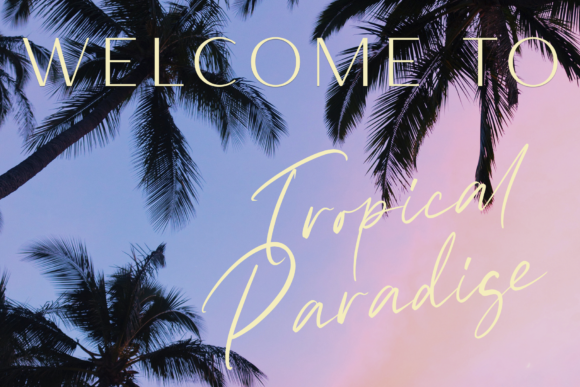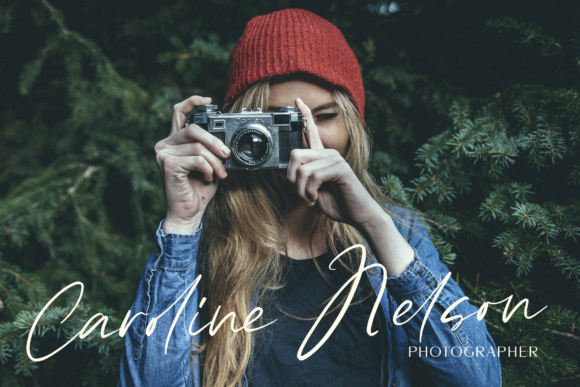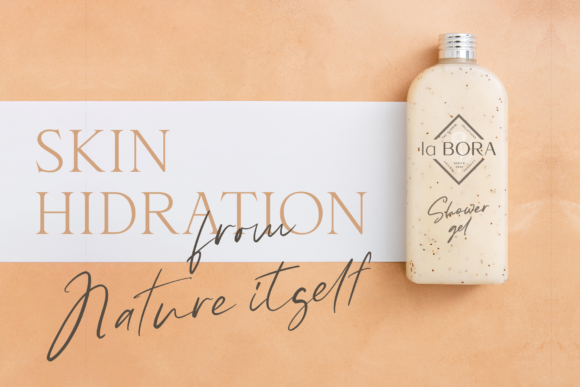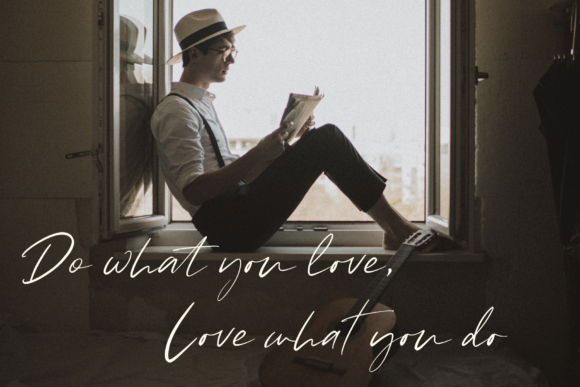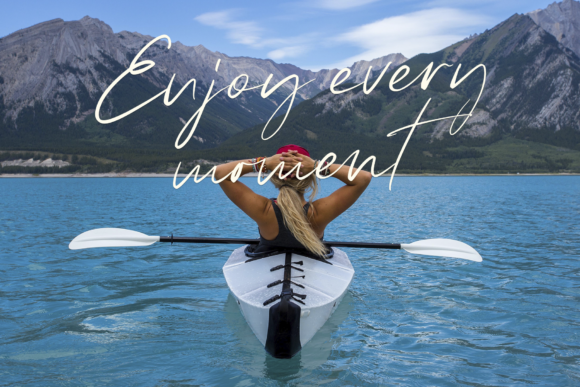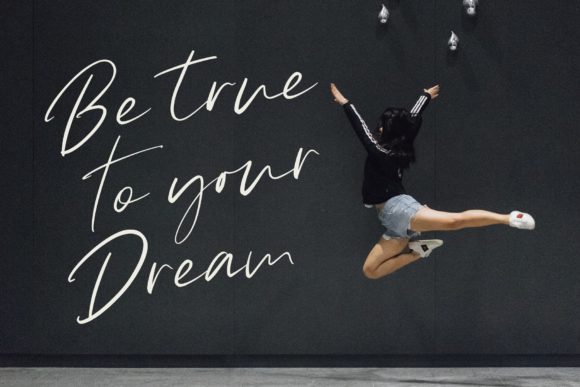
Introduction to Malmont Font
Have you ever found yourself stuck in a creative rut, searching for the perfect font to bring your project to life? You’ve poured your heart and soul into designing a beautiful layout, but something’s missing – that special touch that makes it truly unforgettable. For designers, the right font can be the difference between a good design and a great one.
Enter the Malmont Font, a timeless and flowing handwritten font that’s sure to captivate your audience. With its relaxed feel and versatile design, this font is the perfect addition to any creative project. Whether you’re working on a high-quality design for a client or a personal project, Malmont Font is a valuable resource that’s sure to elevate your work.
Key Features of Malmont Font
- Unique and elegant design, perfect for creative projects requiring a touch of sophistication.
- Designed to be highly versatile, making it suitable for a wide range of creative projects, from logos to editorial content.
Honest Review: Malmont Font
I recently stumbled upon the Malmont Font, and I must say it’s been a game-changer for my creative projects. As a designer, I’m always on the lookout for high-quality fonts that can elevate my designs and make them stand out. The Malmont Font is a great addition to my design resource library.
What works well with the Malmont Font is its versatility and modern aesthetic. I’ve used it for various projects, from branding materials to digital interfaces, and it always seems to fit right in. The font is highly customizable, and the transparent background option is a huge plus when working with creative projects that require a lot of layering and blending.
- ✨ High-quality design with a modern aesthetic
- ✨ Versatile and highly customizable
- ✨ Transparent background option for seamless layering
However, I do have a few minor issues with the Malmont Font. The font can be a bit too bold for some projects, and the italic style could be more refined. ⚠️ These are minor limitations, but they’re worth noting if you’re planning to use the font extensively.
Overall, I’m really impressed with the Malmont Font. Its high-quality design and versatility make it a great addition to any designer’s library. I highly recommend it for any creative project, especially those that require a modern and sleek aesthetic.